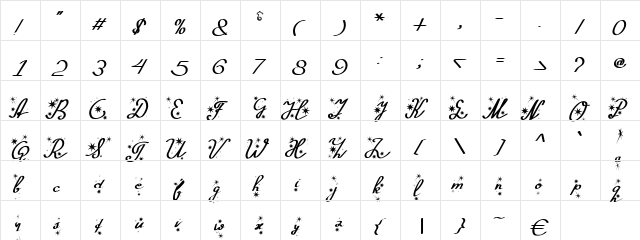
Silvester Regular
Design Context for Silvester Typeface
Silvester is a composed and adaptable typeface that performs quietly and consistently across a wide range of design contexts.